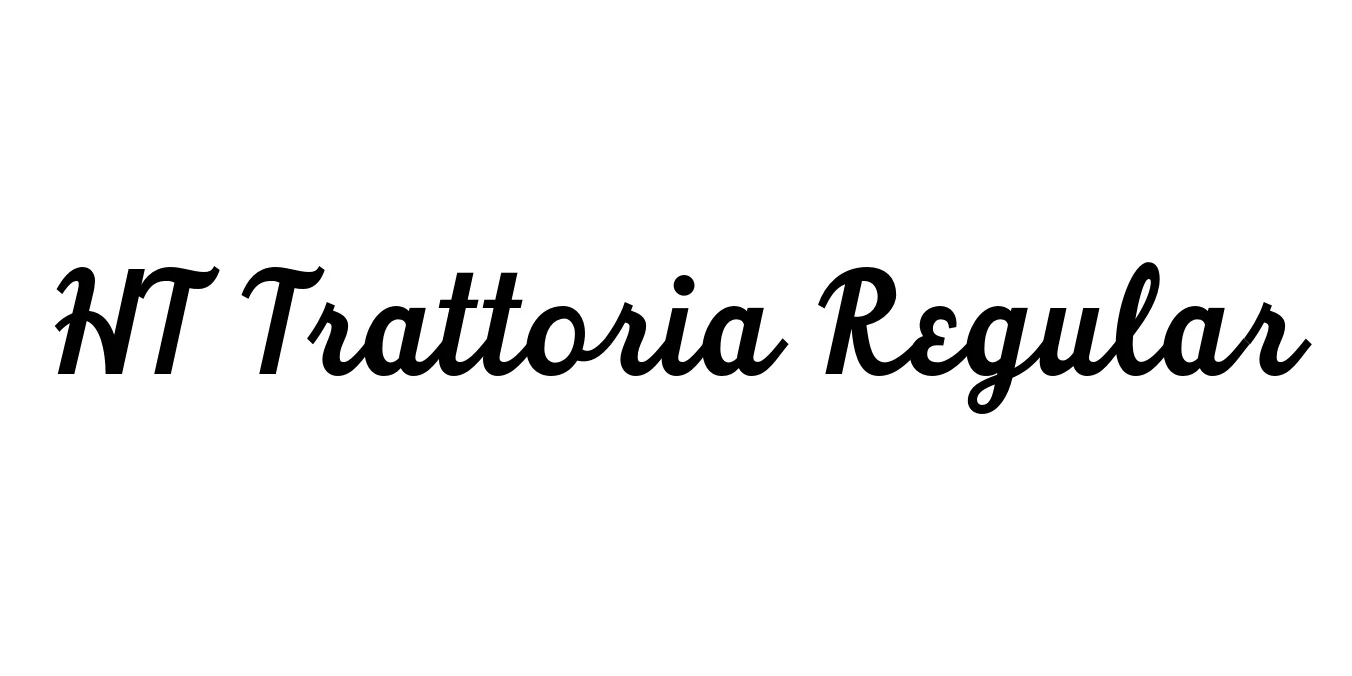
HT Trattoria Regular
Designed by Guilhem Greco (Herofonts)
HT Trattoria Regular is a sophisticated and expressive script typeface that captures the authentic essence of hand-painted signage found in traditional Italian eateries. Created by the talented Guilhem Greco of Herofonts, this font features fluid, organic brush strokes and a rhythmic flow that mimics natural handwriting. Its distinct character stems from the balance between casual bistro vibes and elegant calligraphy, making it a standout choice for designers looking to add a personal, artisanal touch to their work.
Released as a versatile display font, it excels in environments where texture and personality are paramount. The design incorporates subtle variations in line weight that give it a handcrafted aesthetic, ensuring it remains legible even in complex layouts. Whether it is being used for high-end packaging or digital invitations, HT Trattoria Regular provides a warm, welcoming atmosphere that effectively bridges the gap between classic vintage styles and modern design sensibilities.
HT Trattoria Regular Best Uses
Perfect for logos, signage, and identity materials for cafes and Italian bistros.
Ideal for creating warm and inviting food and beverage lists.
Adds an artisanal and high-quality feel to food products and craft goods.
Great for wedding and event stationery that requires a personal, handwritten look.